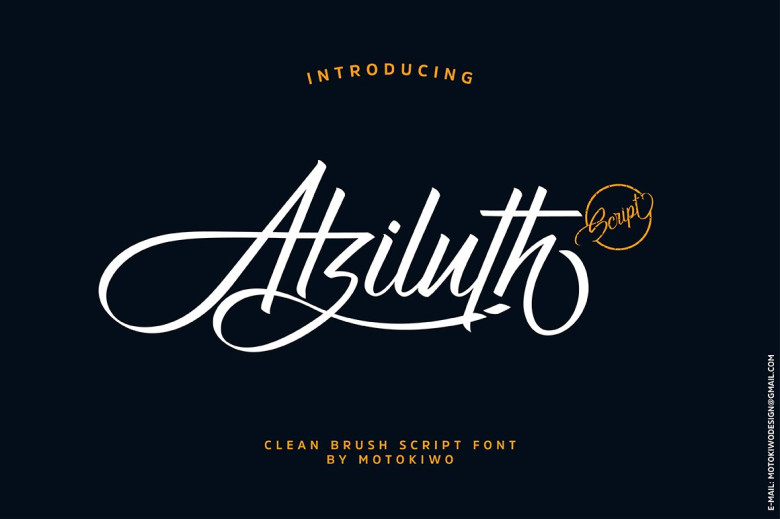
Atziluth Script Font
The following will be a clean brush script font. Introducing Atziluth! Atziluth designed and shared by Anton Cahyono. Atziluth is a gorgeous script font based on calligraphic style and grace. This is a display font, created directly with digital brush and is an accessible and flexible font with tons of alternates and ligatures for branding or logotype purposes.